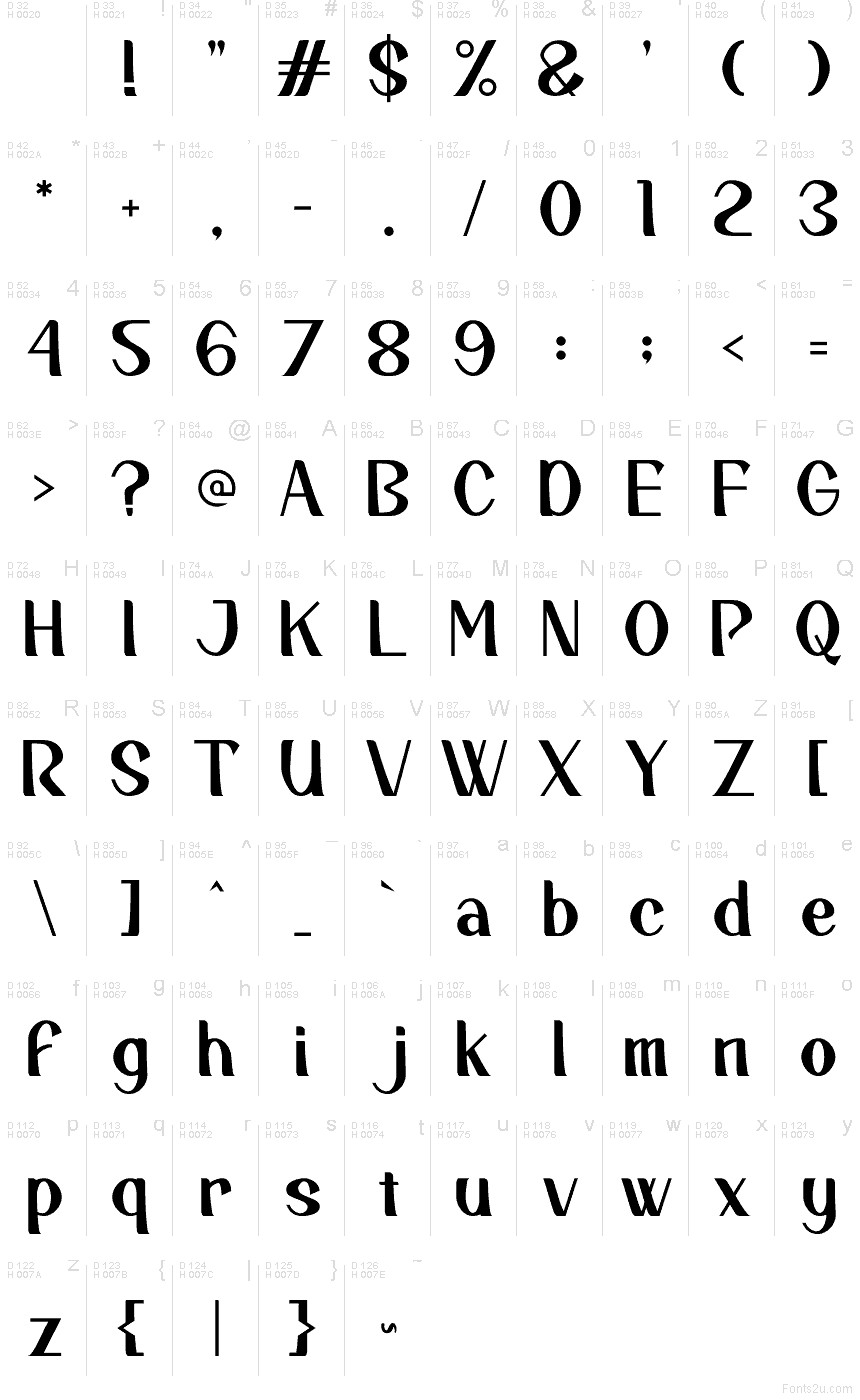
Riclane font by suhadidesign is a free display typeface with a bold, sculpted presence and softly carved counters that feel almost hand-chiseled. Its thick strokes, rounded edges, and subtle stencil-like cuts give each letter a rich, inky weight that stands out without shouting. There’s a stylish tension between its smooth curves and abrupt slices, creating a look that feels both vintage and sharply modern.
Using Riclane, this free font shines on branding that needs character: boutique logos, packaging, posters, book covers, and striking social media graphics. It handles short titles and wordmarks beautifully, especially at larger sizes where those nuances can really breathe. For longer supporting text, pair Riclane with a clean geometric sans to keep the layout balanced and easy to read.